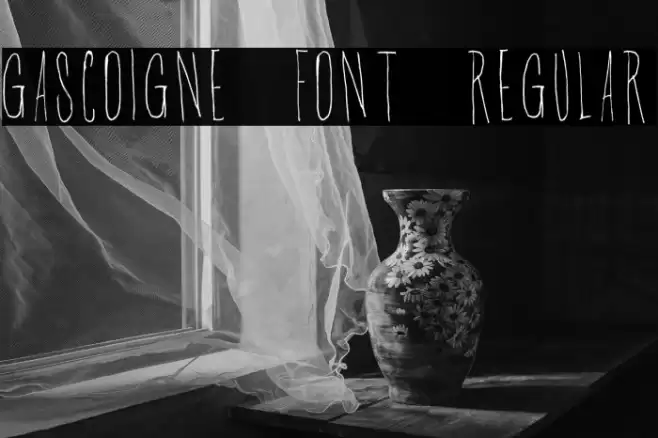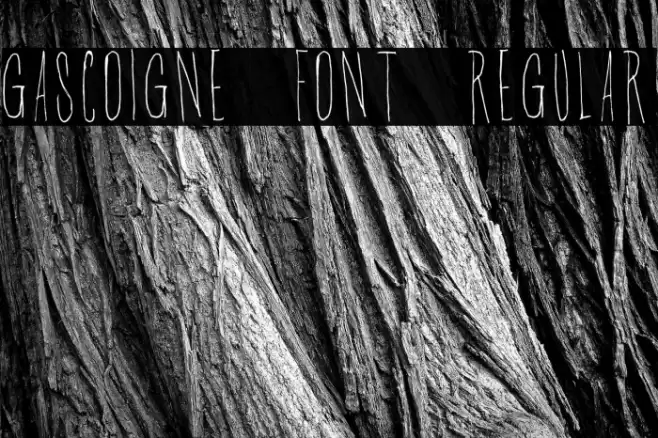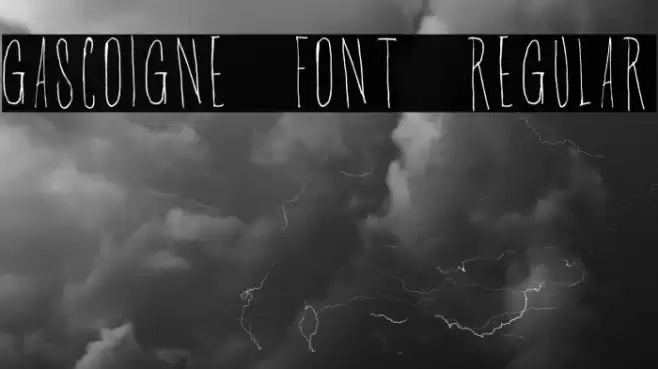
Gascoigne Font Regular Font
Gascoigne Font Regular Description
This font features a unique, hand-drawn style with elongated, thin strokes that give it a whimsical and artistic appearance. The characters are slightly irregular, adding to the charm and personality of the font. It has a tall and narrow structure, which makes it stand out in any design. The uppercase and lowercase letters maintain a consistent style, with a playful yet elegant look. The font lacks traditional serifs, giving it a modern and clean feel, while the uneven lines and slight variations in stroke width add a touch of vintage appeal.
A whimsical, hand-drawn font with elongated, thin strokes and a playful, artistic style from Regular fonts.
- Proposed Projects: Ideal for creative projects such as invitations, greeting cards, posters, and branding materials that require a personal touch.
- Overall Style: Artistic